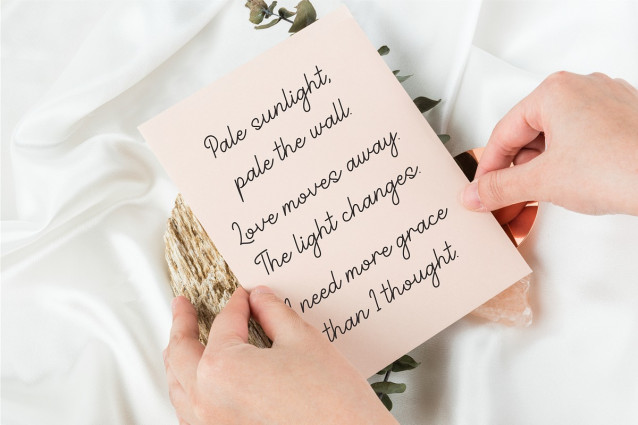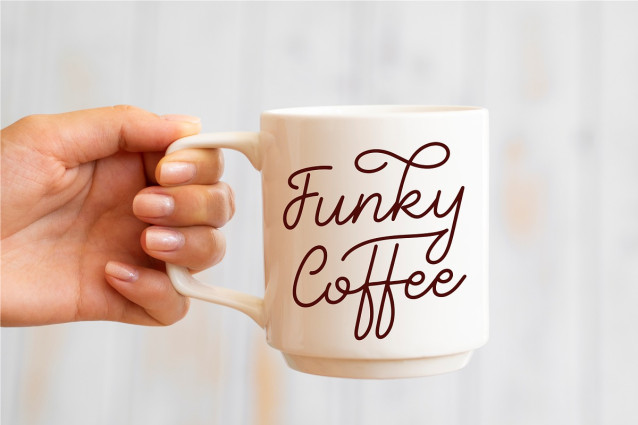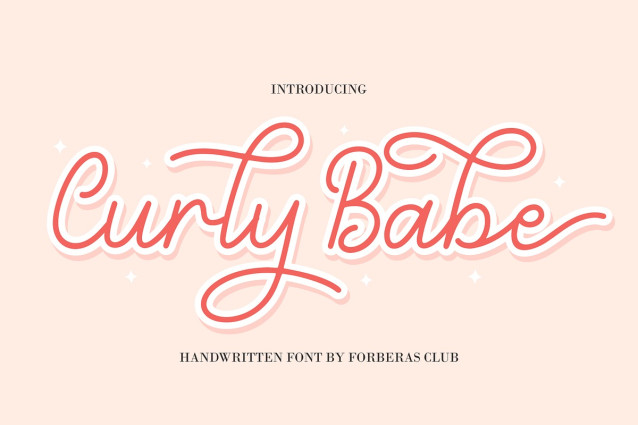
Curly Babe Handwriting Font
Curly Babe Handwriting Font A fancy and elegant handcrafted font that create to impress your audience and make your branding shine.Make your projects dance with this elegant and wonderful font wherever you use it. Use it for your headings, logos, ads, printed quotes, packaging, and even your website or social media branding.every letter has unique and beautiful touch, which will make your design come alive!This is a smooth font – perfect for cut machines like Cricut and Silhouette!